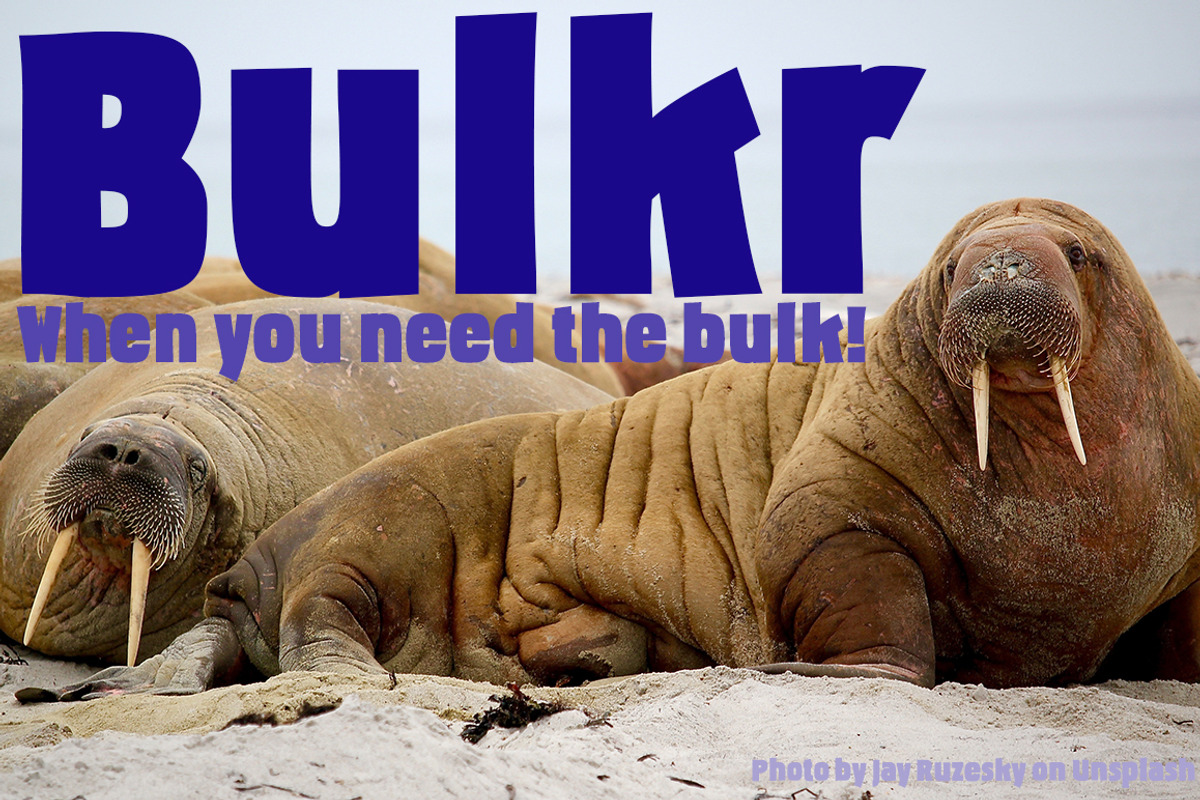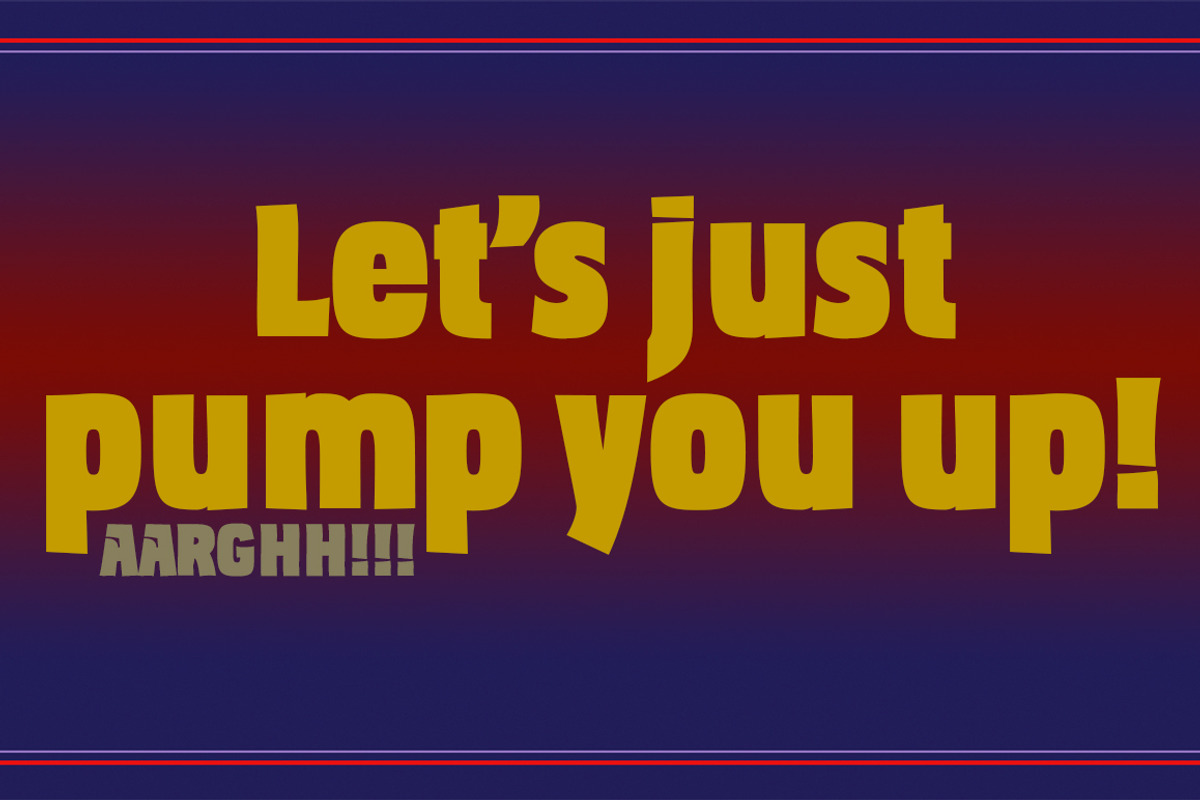
Bulkr, a font when you need impact
Over the years, I've used Impact a lot. But, not because I liked it—rather because it was the only font I could find with the bulk I needed for a given title or whatever. I finally decided to make my own. It was originally built off Librum Sans Bold, but I quickly made a mask of Impact for the widths, bumped the x-height way up, made the horizontals much heavier, and on and on. You know how it is when you start designing.
The result is a black sans with the bulk of Impact and much more interesting character shapes. I suspect I'll use it a lot. My hope is that you like it as much as I do. Have fun!